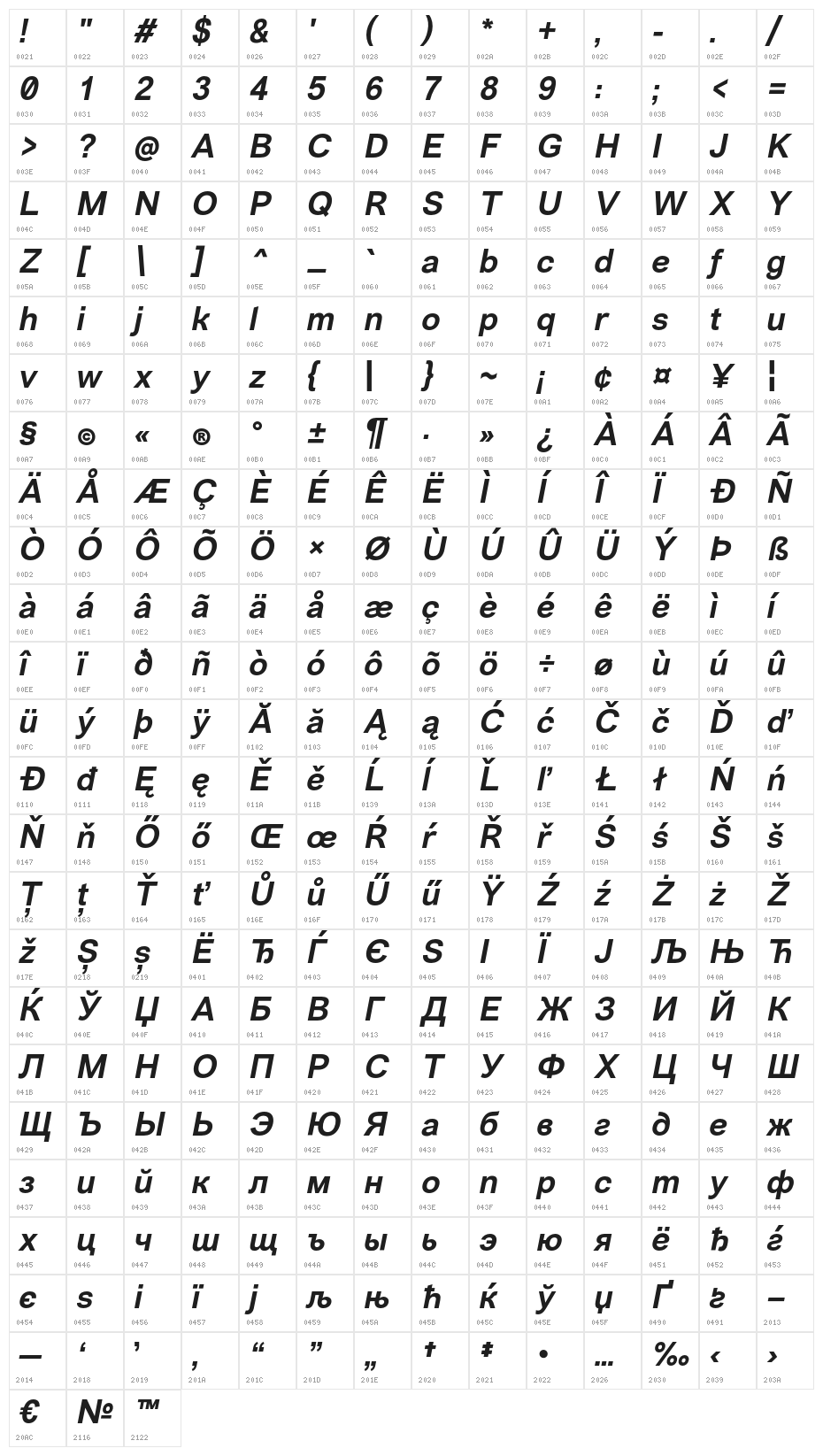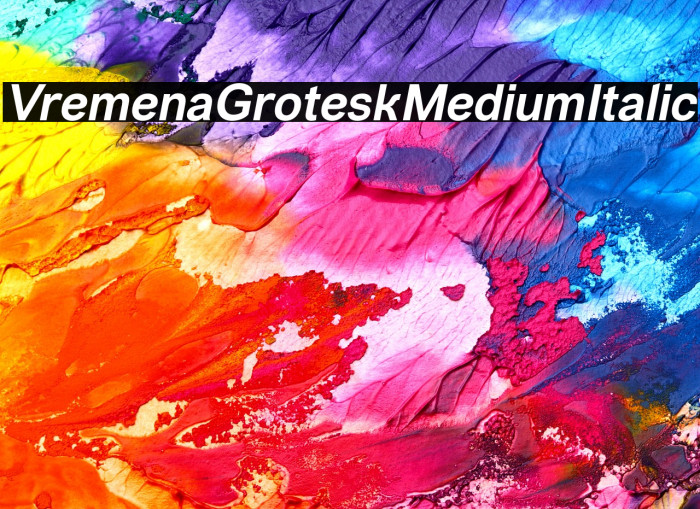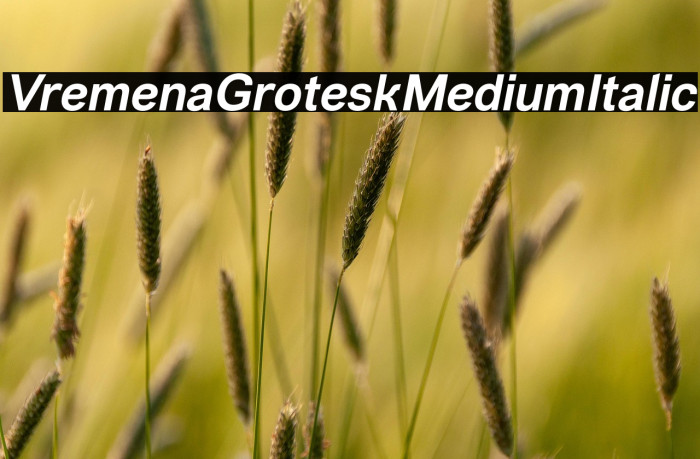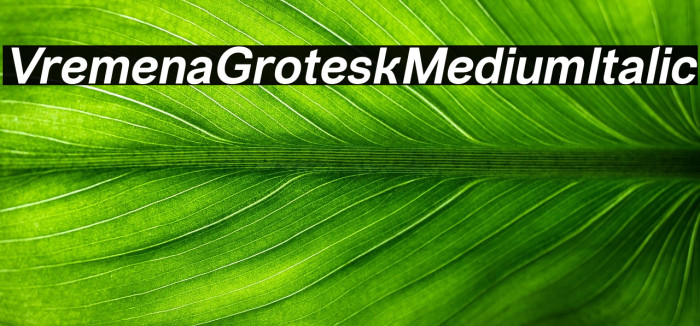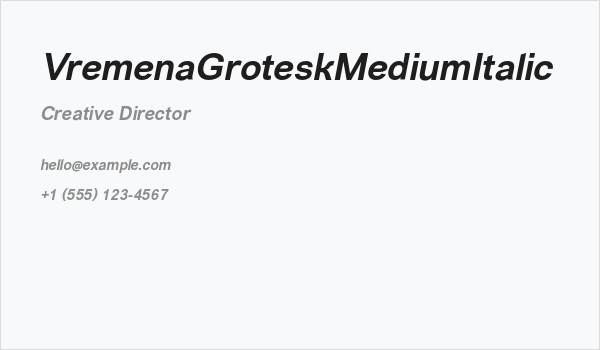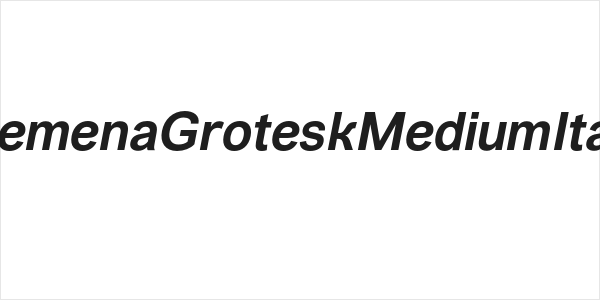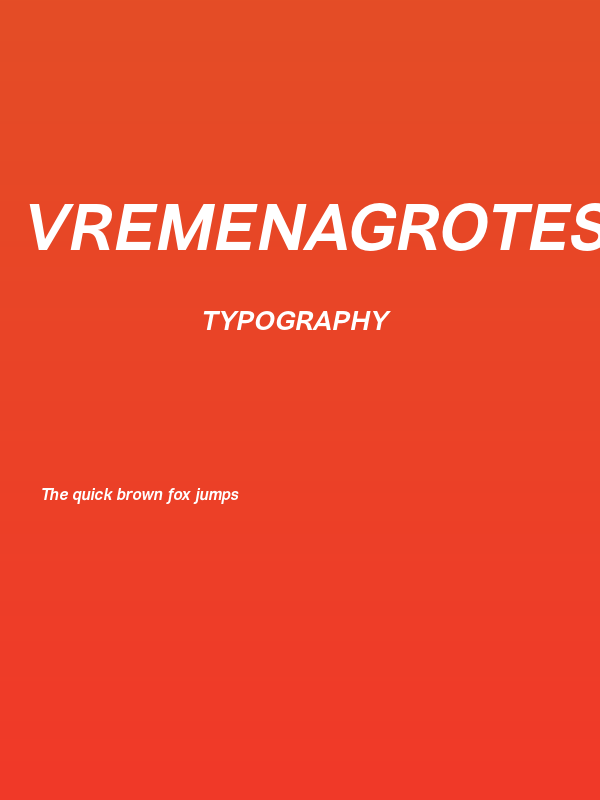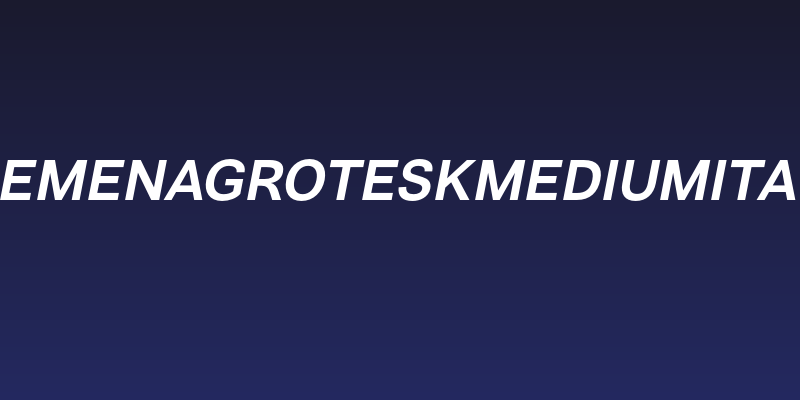
VremenaGroteskMediumItalic Font
VremenaGroteskMediumItalic Description
This font exhibits a clean and modern sans-serif style with a slight italic slant, giving it a dynamic and forward-moving appearance. The characters are well-proportioned with consistent stroke widths, contributing to a balanced and harmonious look. The uppercase letters are bold and assertive, while the lowercase letters maintain a friendly and approachable feel. The numerals are clear and legible, making them suitable for various applications. Special characters are distinct and well-integrated, ensuring versatility in design projects. Overall, this font's medium weight and italic style make it suitable for both professional and creative uses.
Proposed ProjectsIdeal for branding, advertising, editorial design, and digital interfaces where a modern and dynamic look is desired.